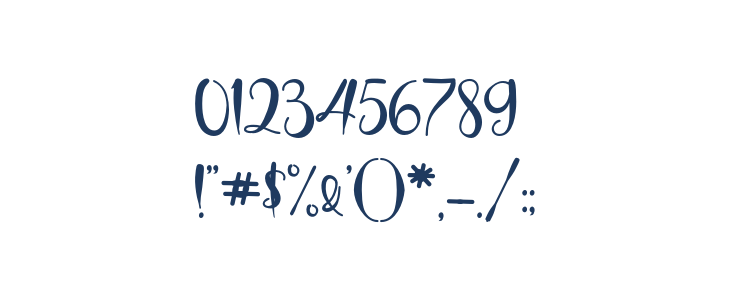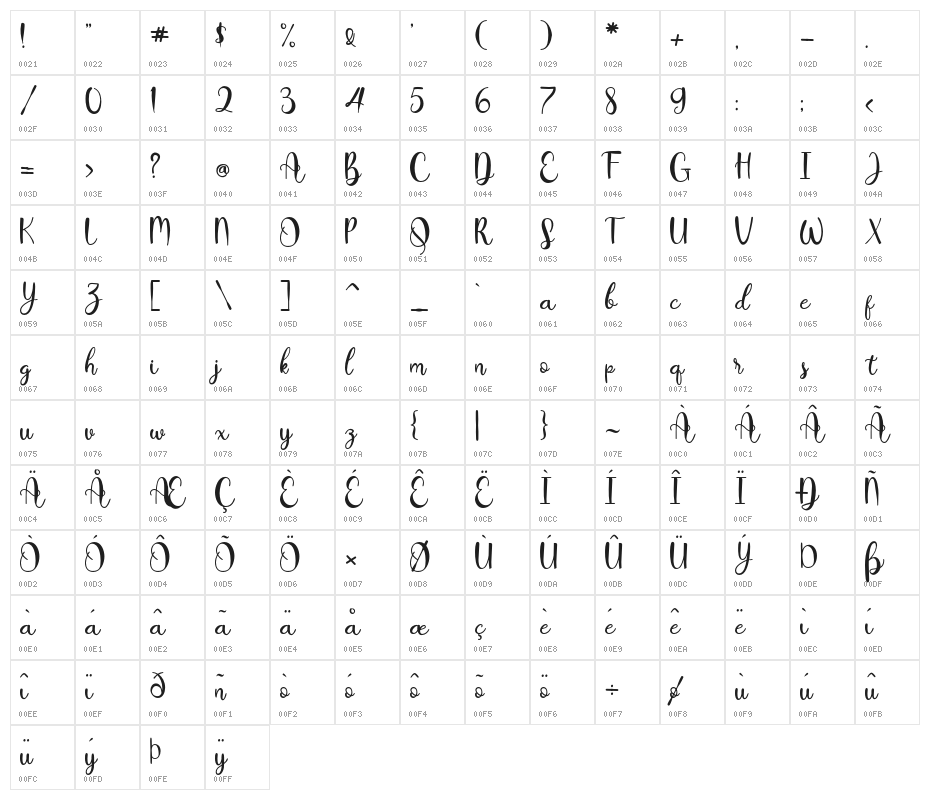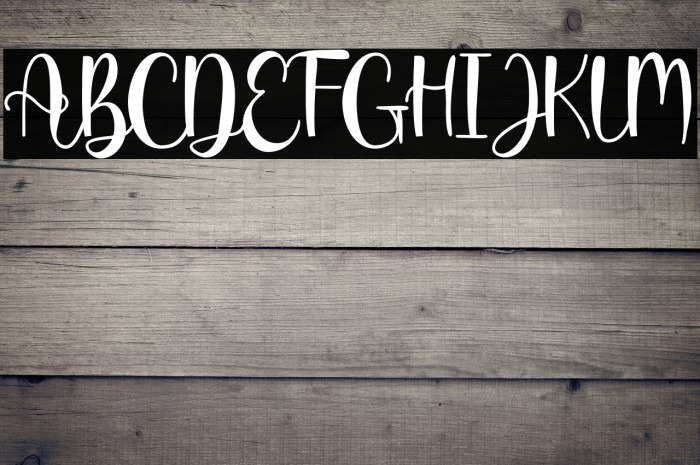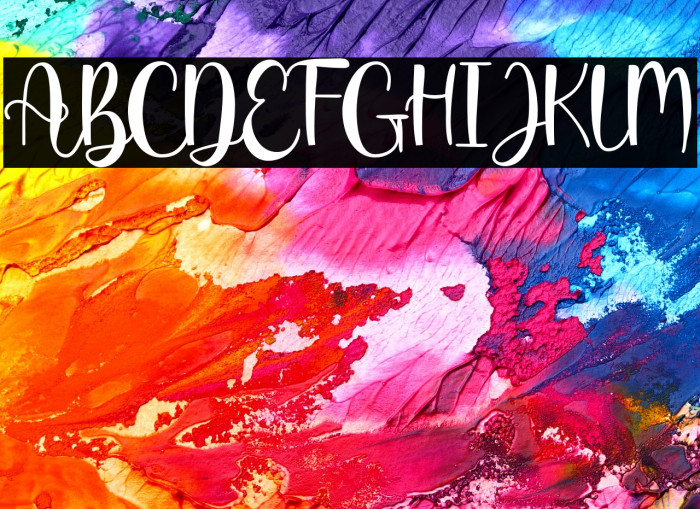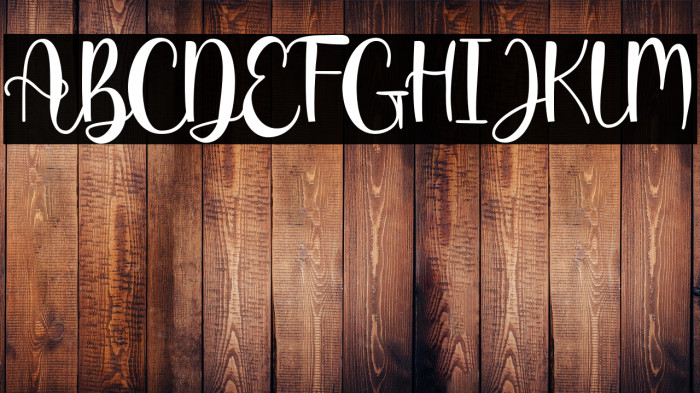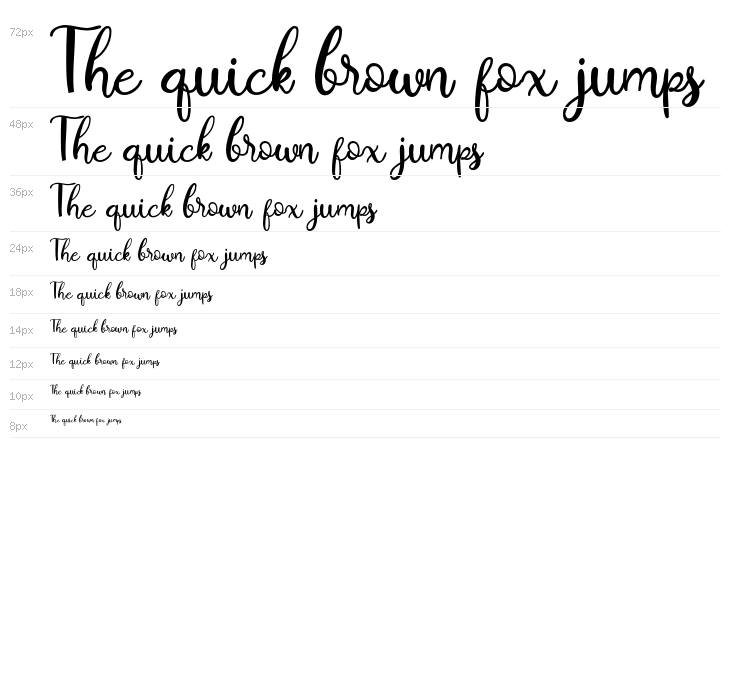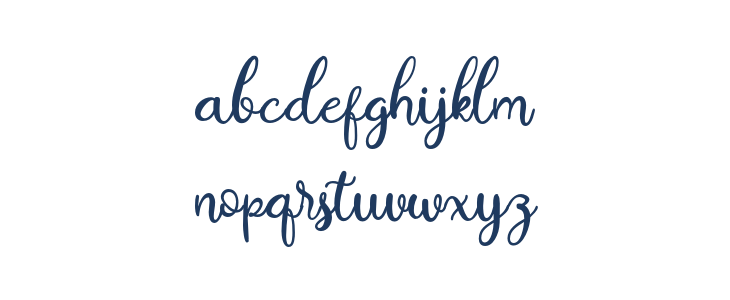
heySweety Font
heySweety Description
This font exudes a playful and whimsical charm, characterized by its flowing, cursive script style. The letters are interconnected with smooth, elegant curves, giving it a handwritten feel. The uppercase letters are bold and expressive, while the lowercase letters maintain a consistent fluidity. Numbers and special characters are crafted with the same attention to detail, ensuring a cohesive look throughout. The font's overall appearance is both artistic and approachable, making it suitable for a variety of creative projects.
| Use Case | Logos, Invitations, Social Media Graphics |
| Proposed Projects | Ideal for greeting cards, invitations, branding, and social media graphics. |